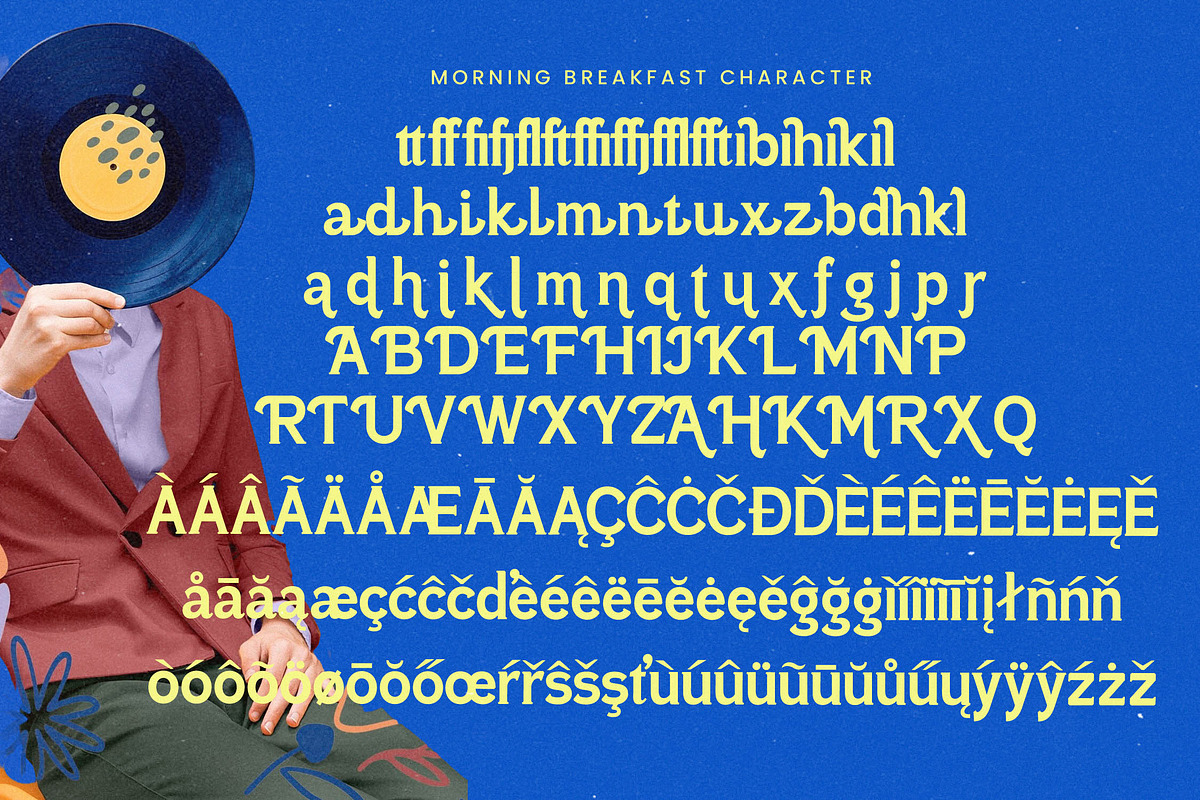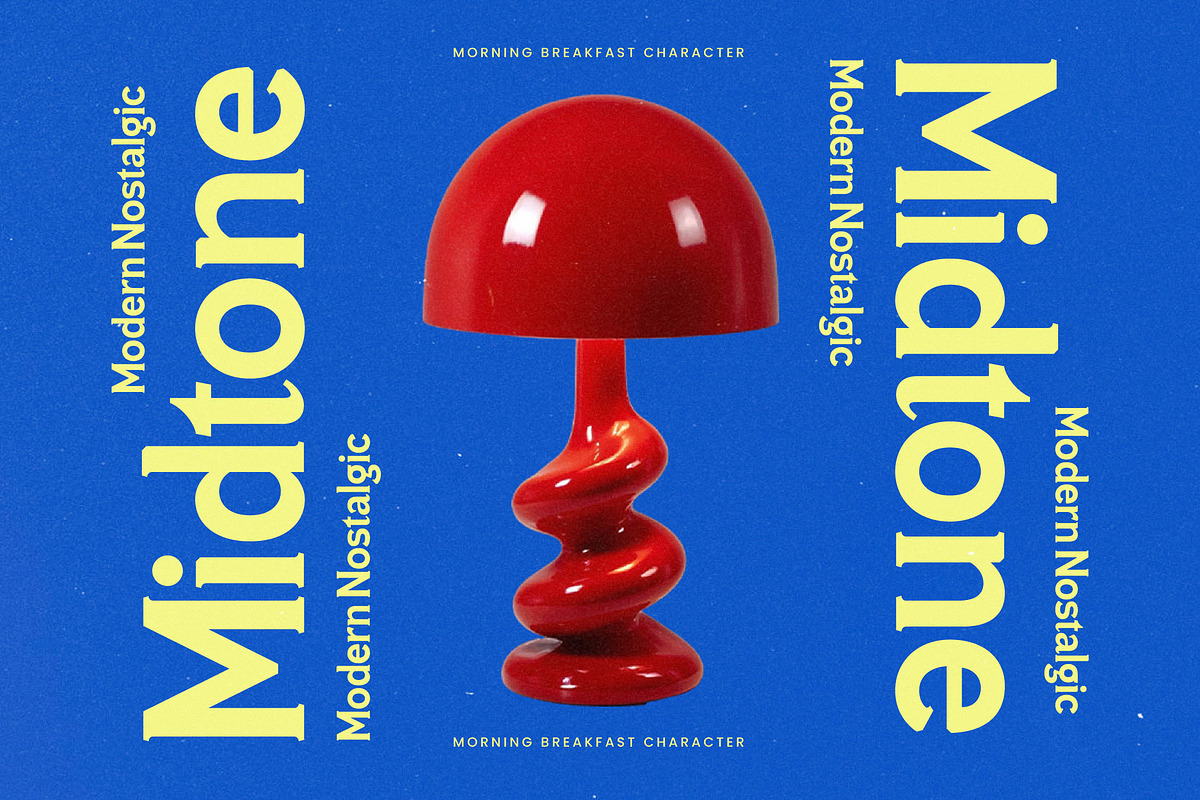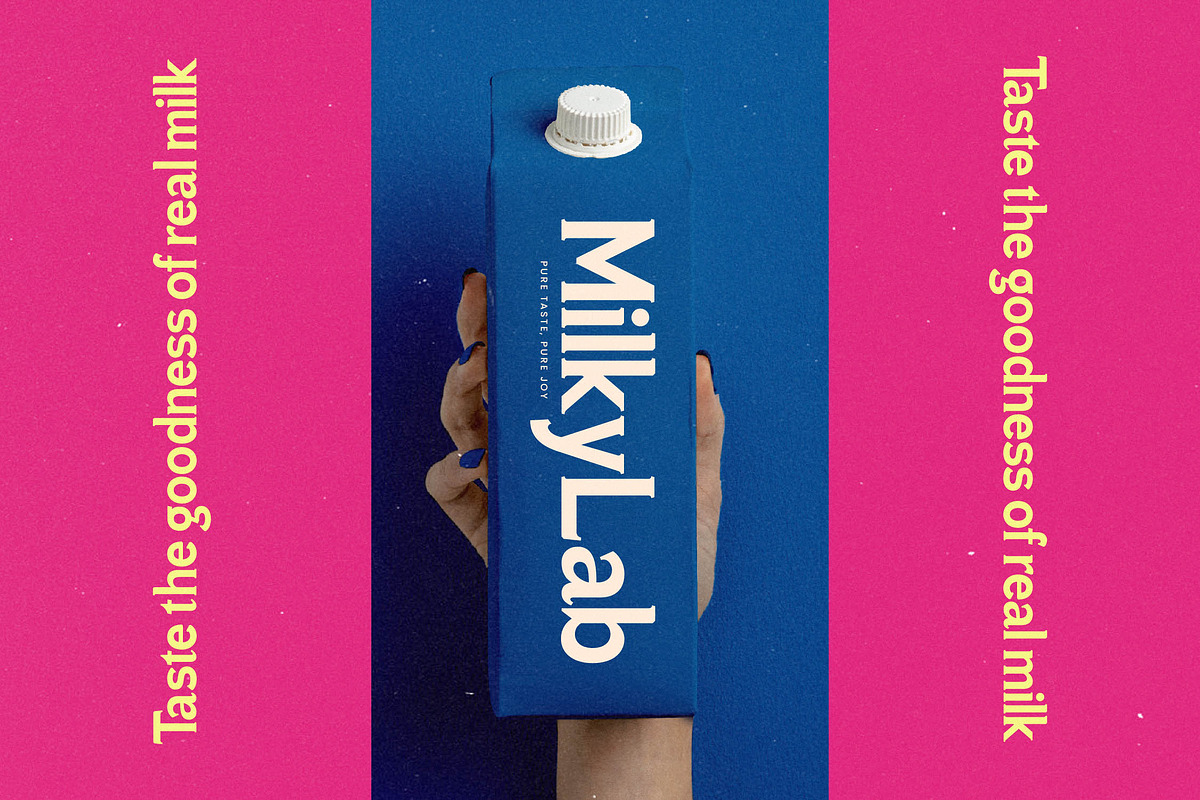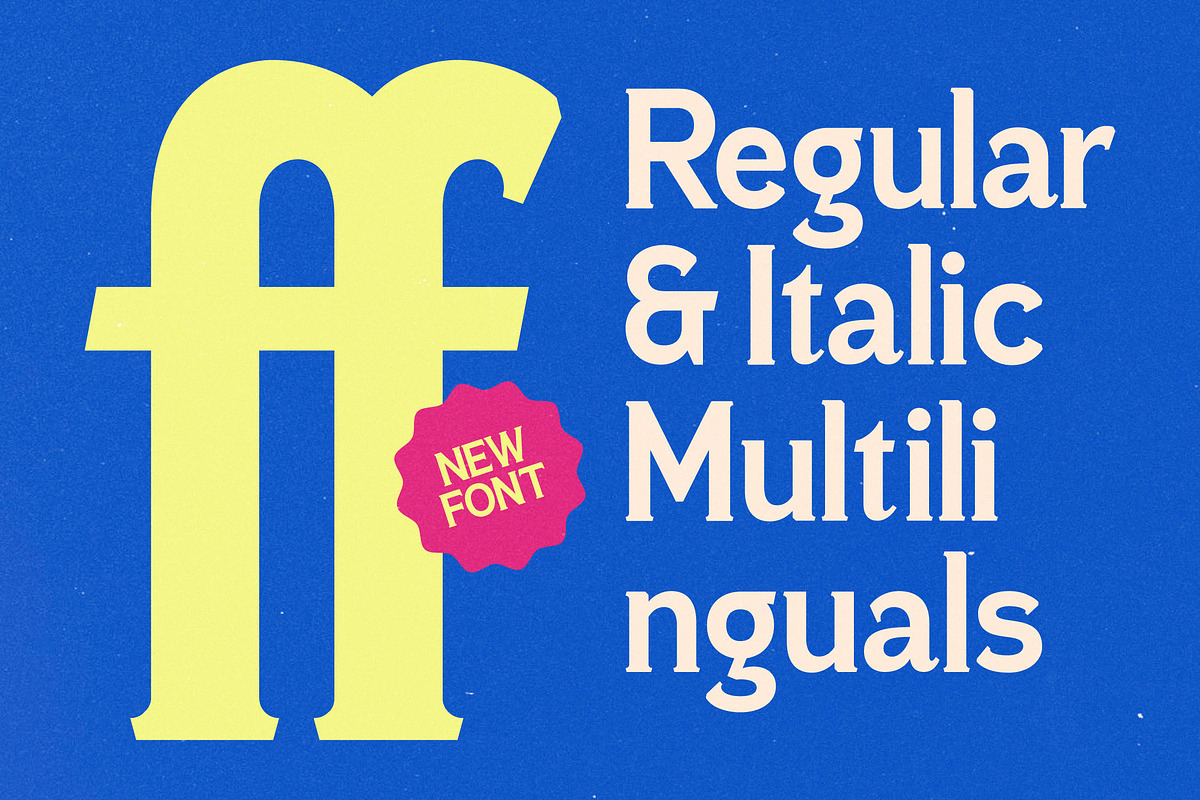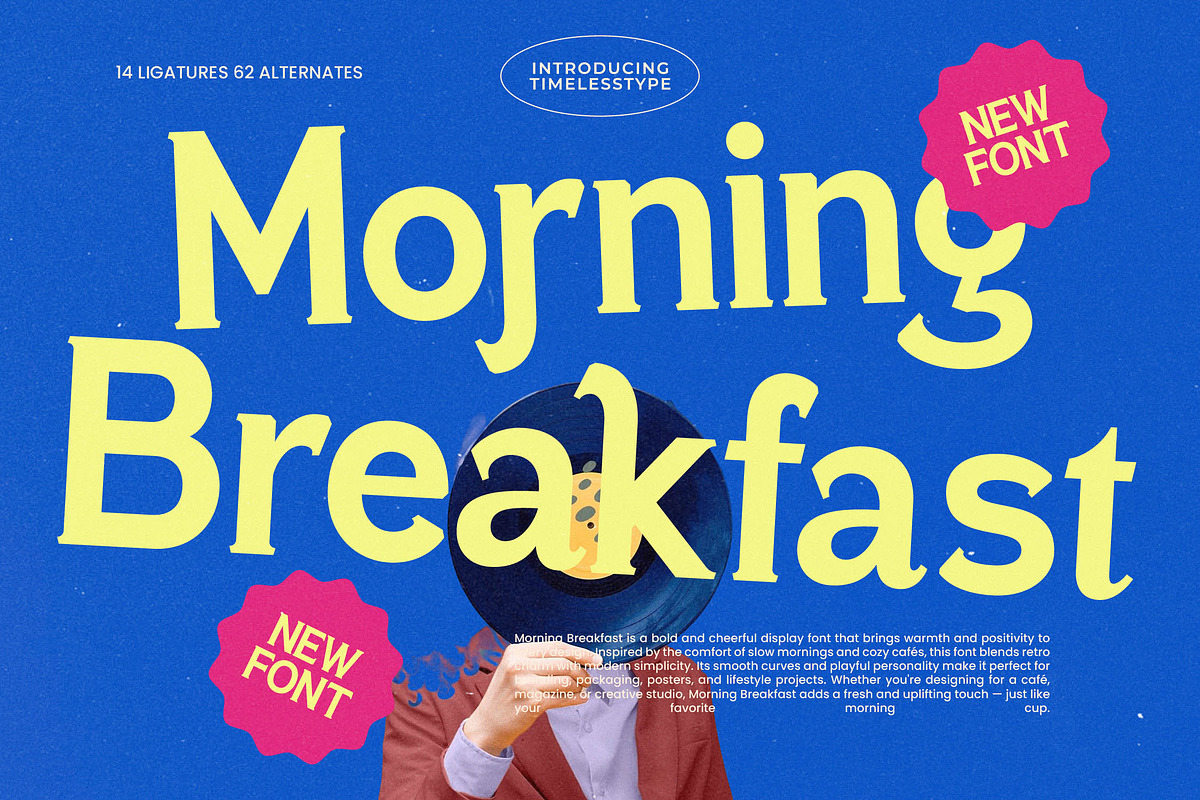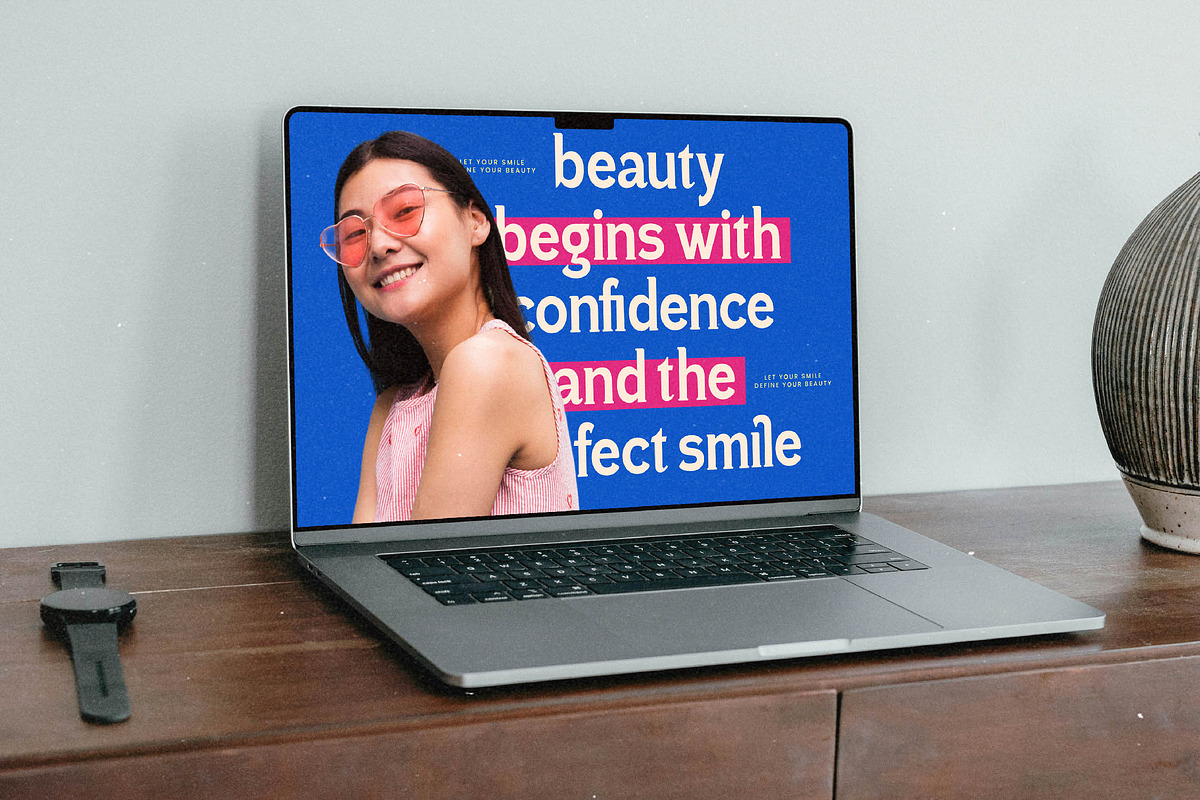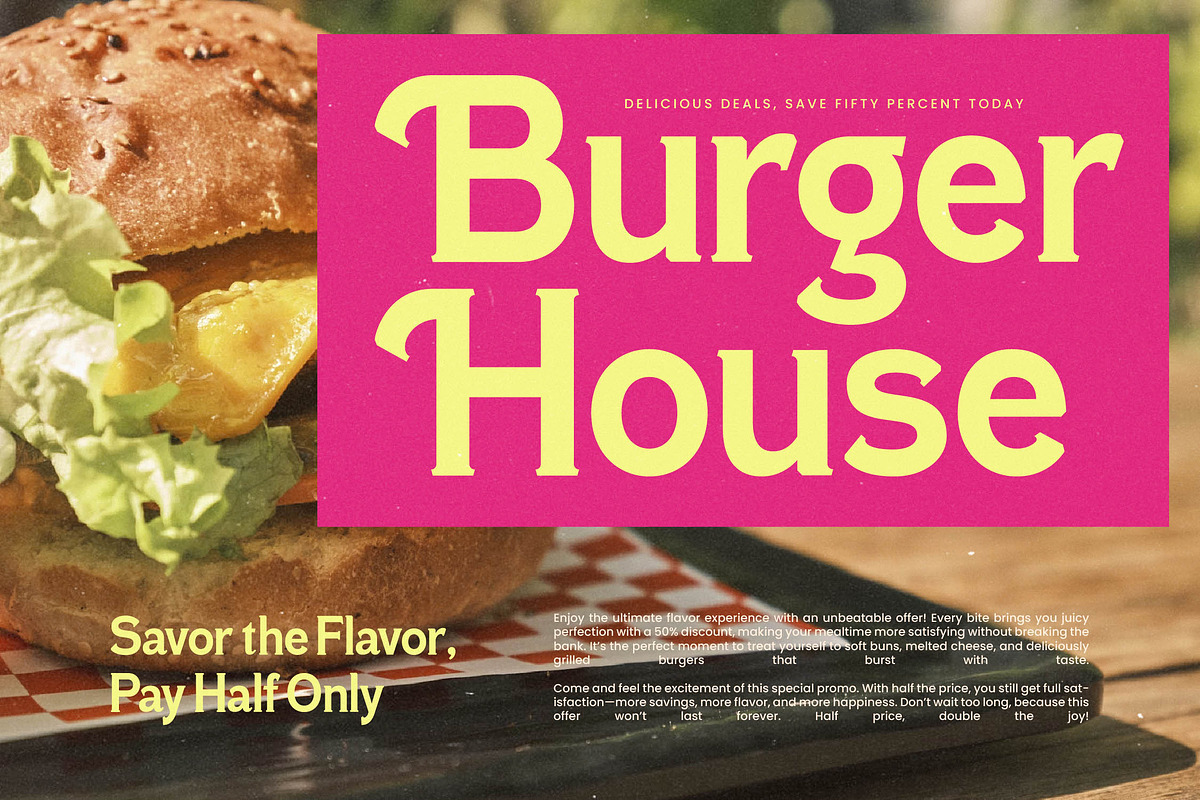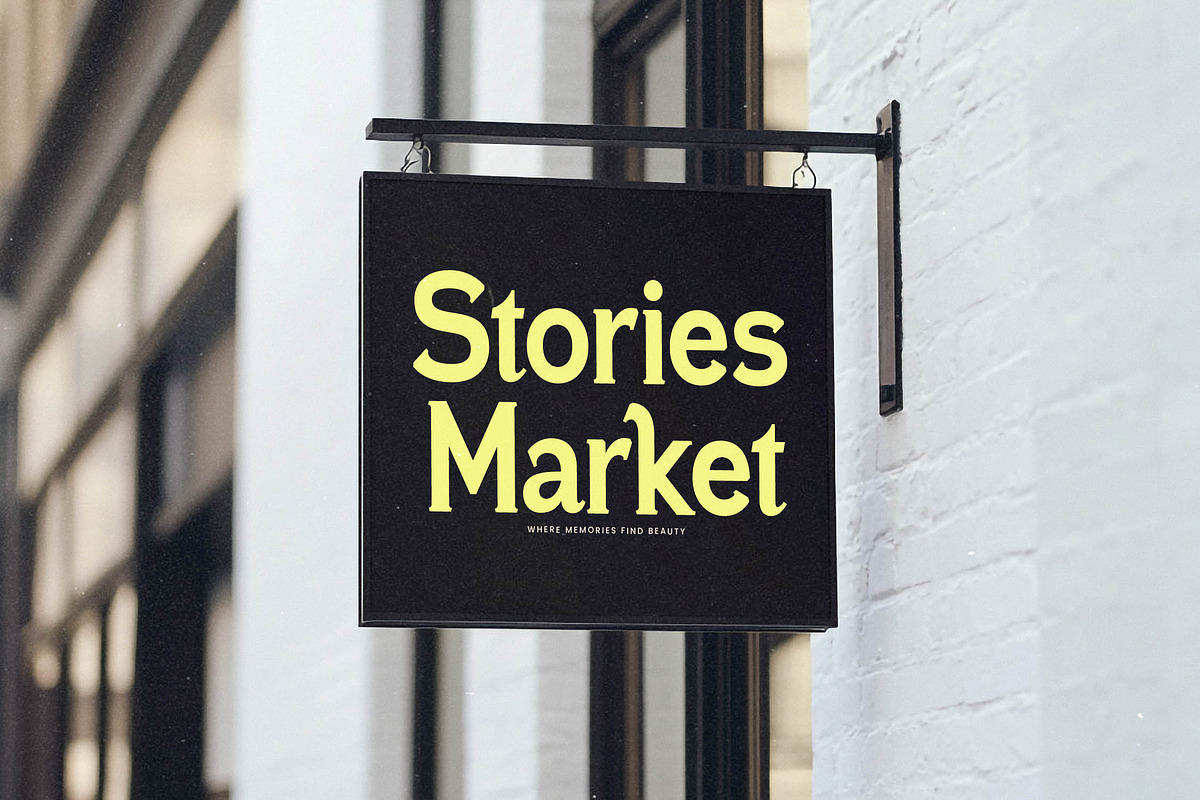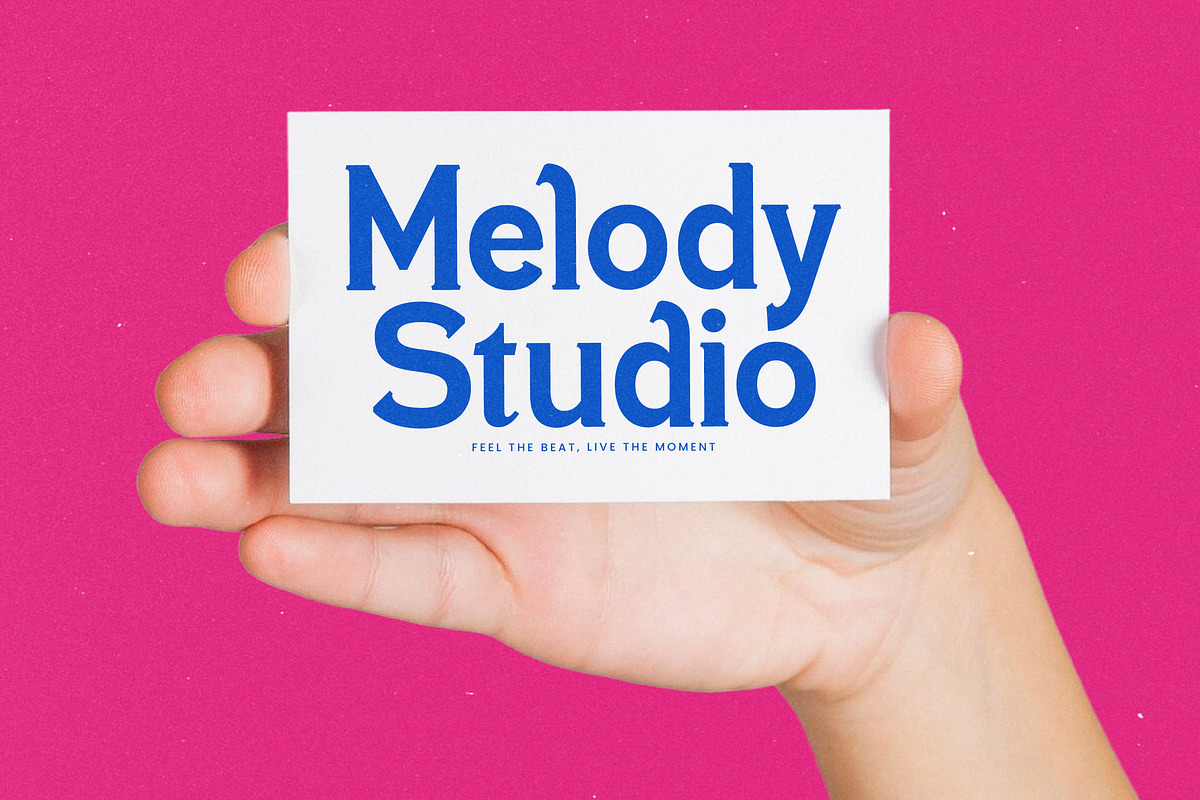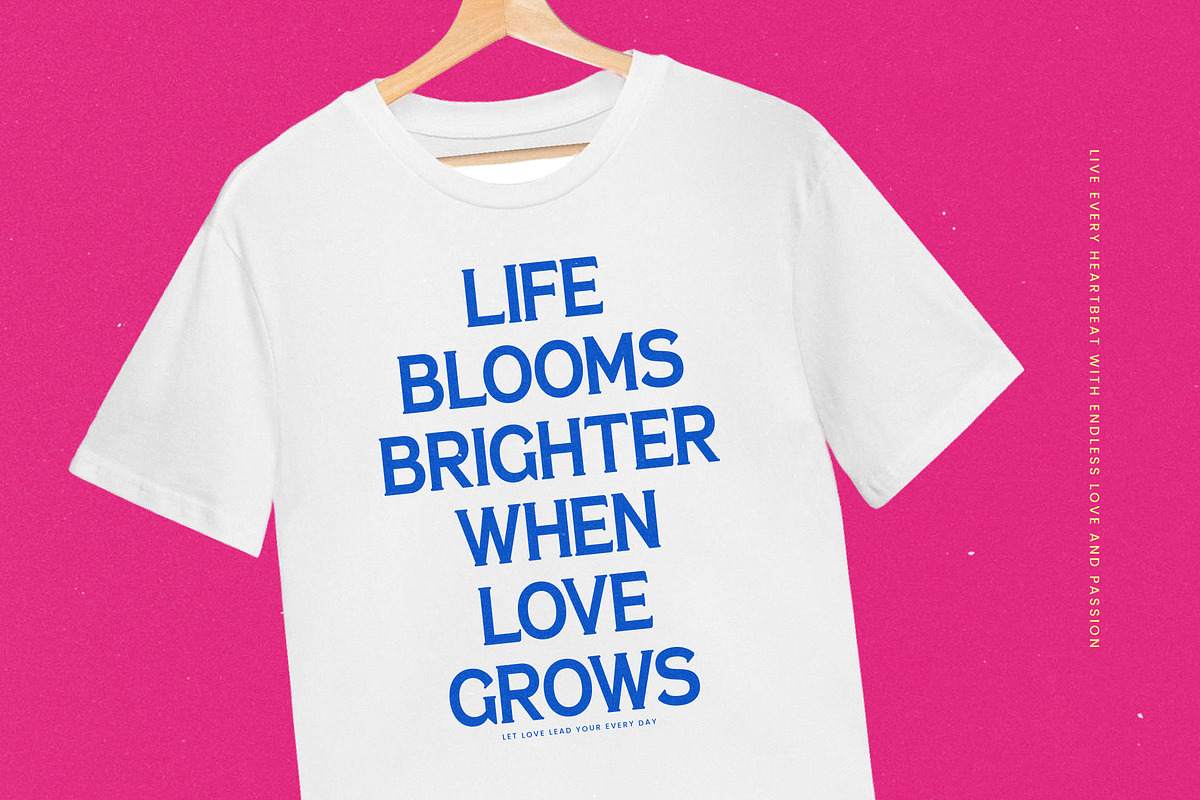
Morning Breakfast Modern Serif
Start your day with the vibrant energy of Morning Breakfast, a font designed to infuse your designs with warmth and unbridled positivity. This display typeface is more than just characters; it is an invitation to embrace the cheerful spirit of a fresh start and creative expression.
Inspired by the quiet comfort of slow mornings and the cozy atmosphere of local artisanal cafes, this font captures the essence of modern simplicity mixed with a touch of nostalgia. It draws visual cues from retro signage and contemporary lifestyle aesthetics to create a look that feels both familiar and refreshingly new.
As a modern serif display font, it offers a unique blend of playful personality and professional execution that guarantees a significant branding impact. This high-contrast serif stands out in any composition, functioning as an essential editorial font for those who want to balance sophisticated luxury typography with an approachable, friendly vibe.
Perfectly aligned with the current modern serif trend, this typeface addresses the growing demand for character-driven typography in the digital age. It sits at the forefront of editorial display fonts, providing designers with the tools to create bold, trendy layouts that capture the attention of a style-conscious audience.
Whether you are working on a high-end logo design or a comprehensive branding identity, this font delivers versatility across multiple platforms. It is the ideal choice for editorial layouts, eye-catching packaging, sophisticated wedding stationery, and avant-garde fashion lookbooks.
This package is fully loaded with technical excellence, featuring 14 ligatures and 62 alternates to provide endless creative possibilities for your work. It includes full multilingual support and a wide array of international characters, ensuring your message reaches a global audience with ease, grace, and including stylistic swashes for that perfect finish..